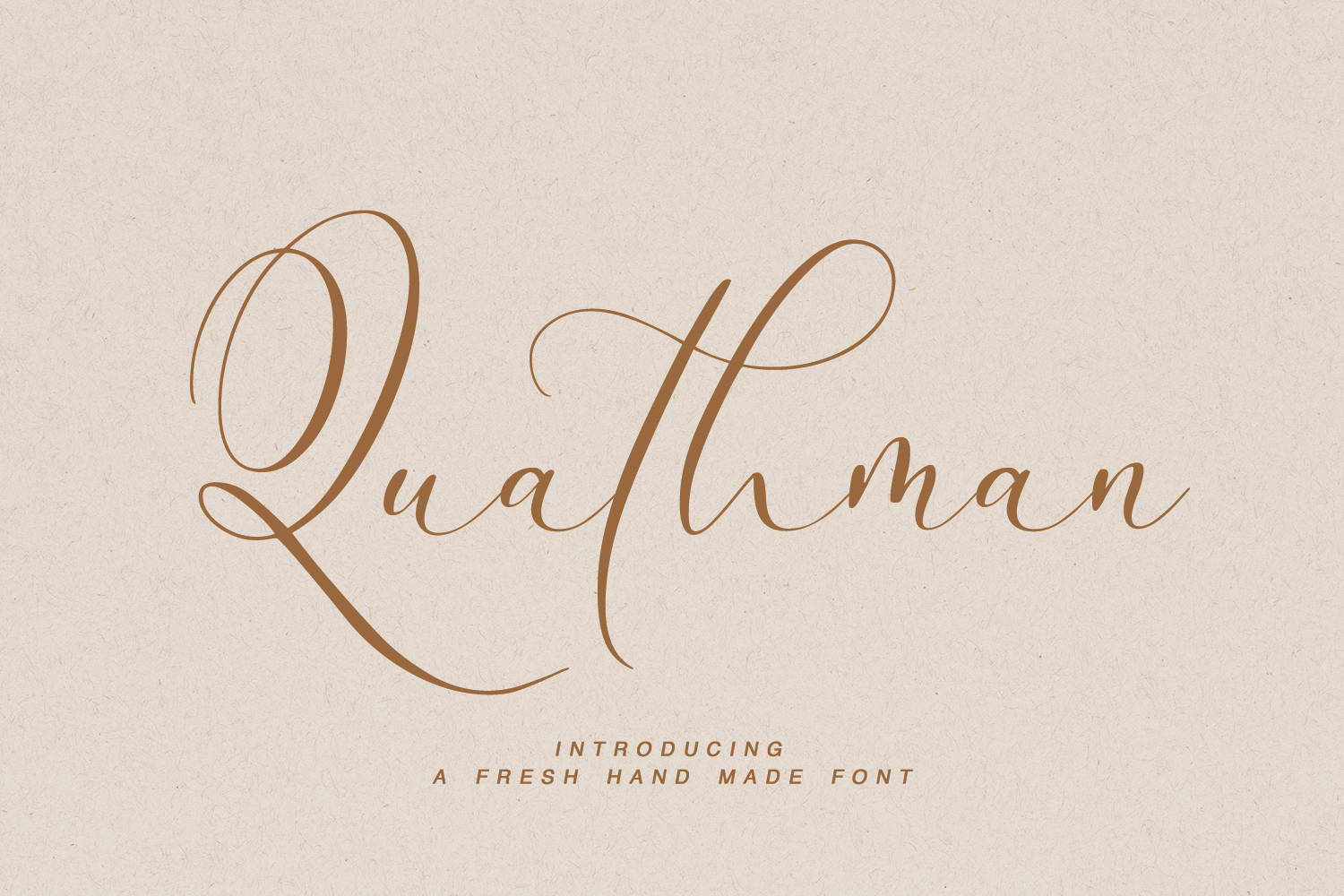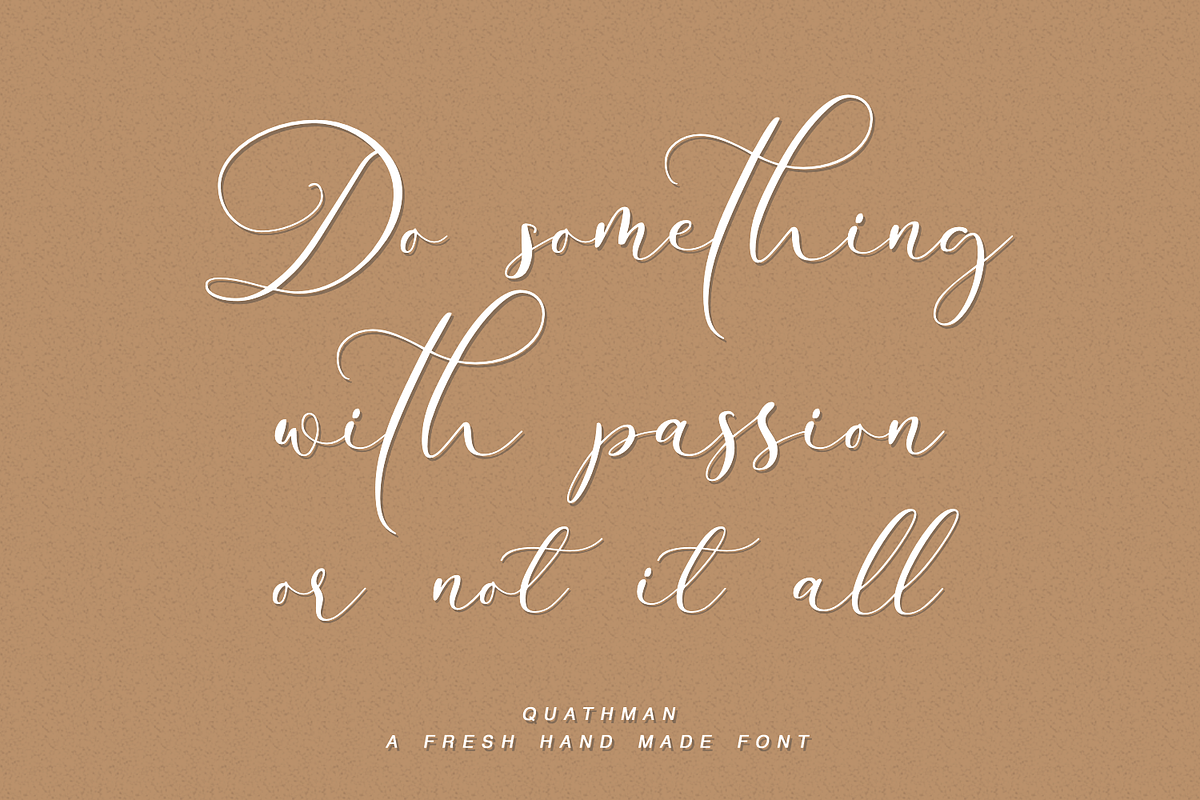
Quathman - a fresh hand made font
Quathman - a new fresh handmade calligraphy font.
Very suitable for greeting cards, branding materials, business cards, quotes, posters, and more!This font are perfect for wedding postcard. Or you can create perfect and unique design of your logo, blog, stationery, marketing, magazines and more :)
Ligatures , Multilingual characters (AÀÁÂÃÄÅCÇDÐEÈÉÊËIÌÍÎÏNÑOØÒÓÔÕÖUÙÜÚÛWYÝŸŸ ÆŒßÞàáâãäåæçèéêëìíîïðñòóôõöøùúûüýÿ)